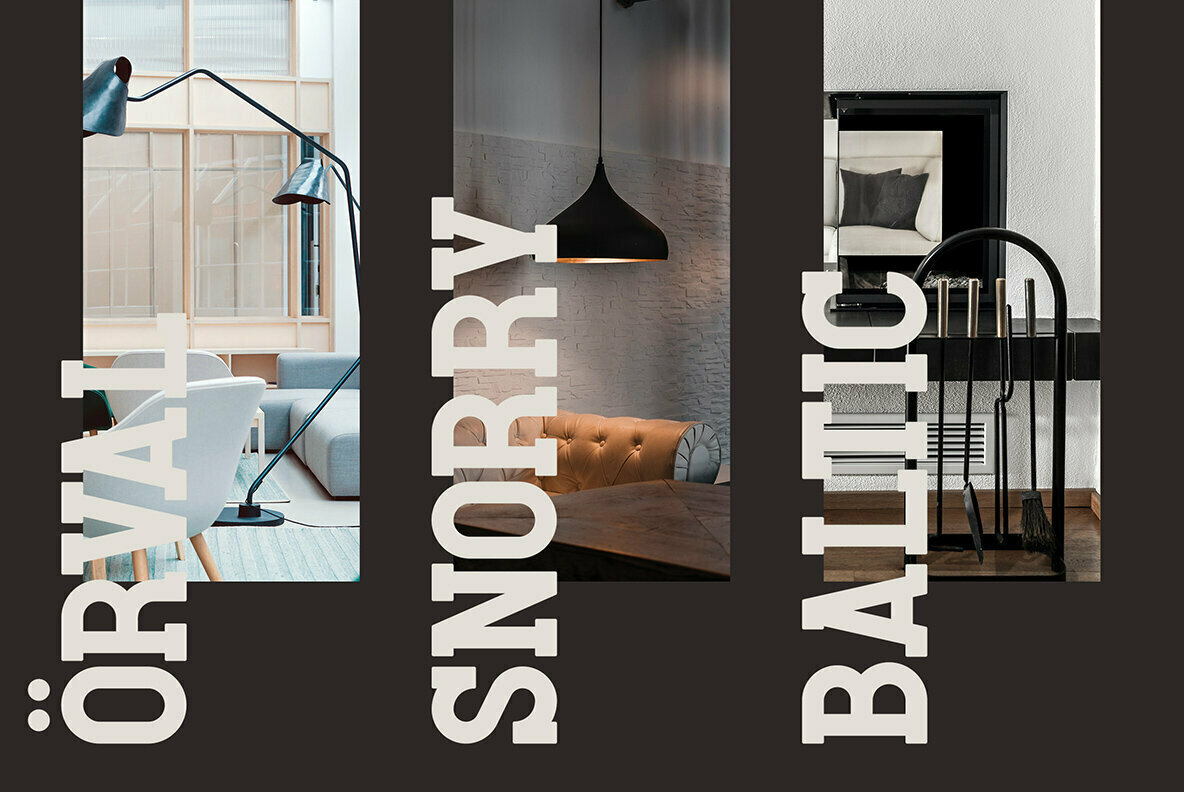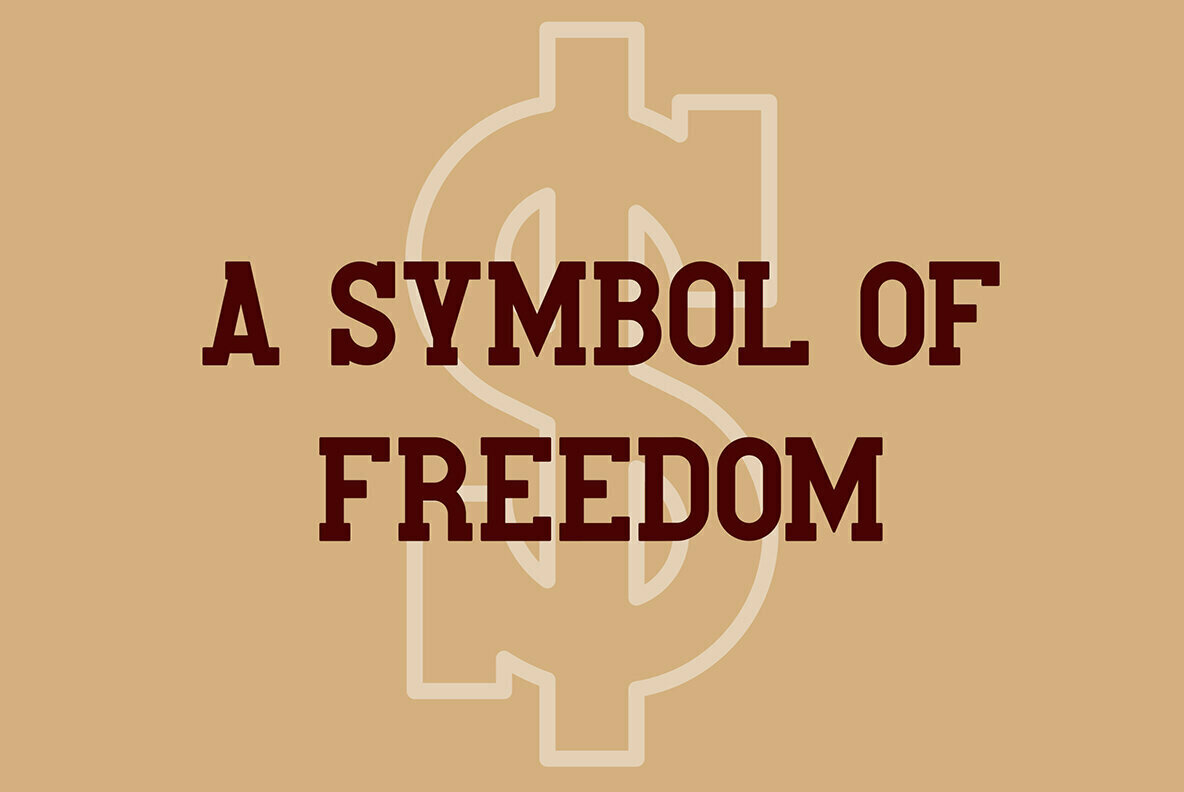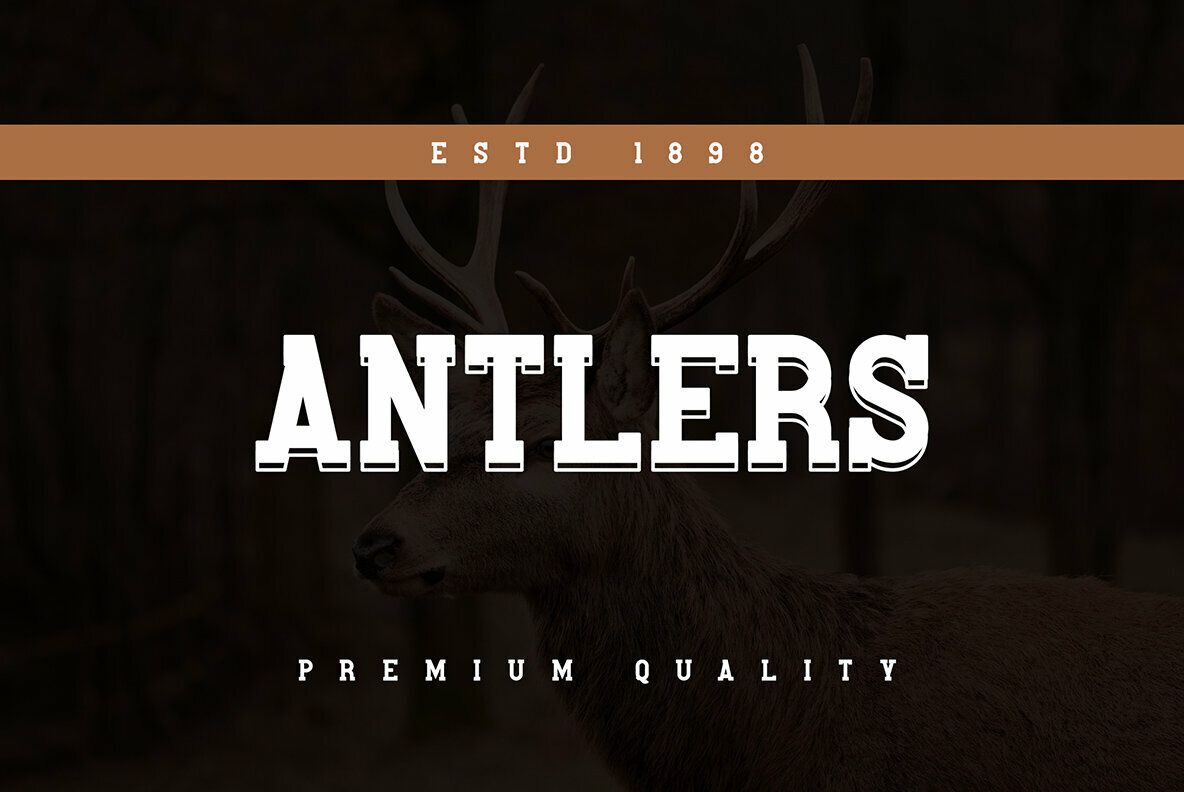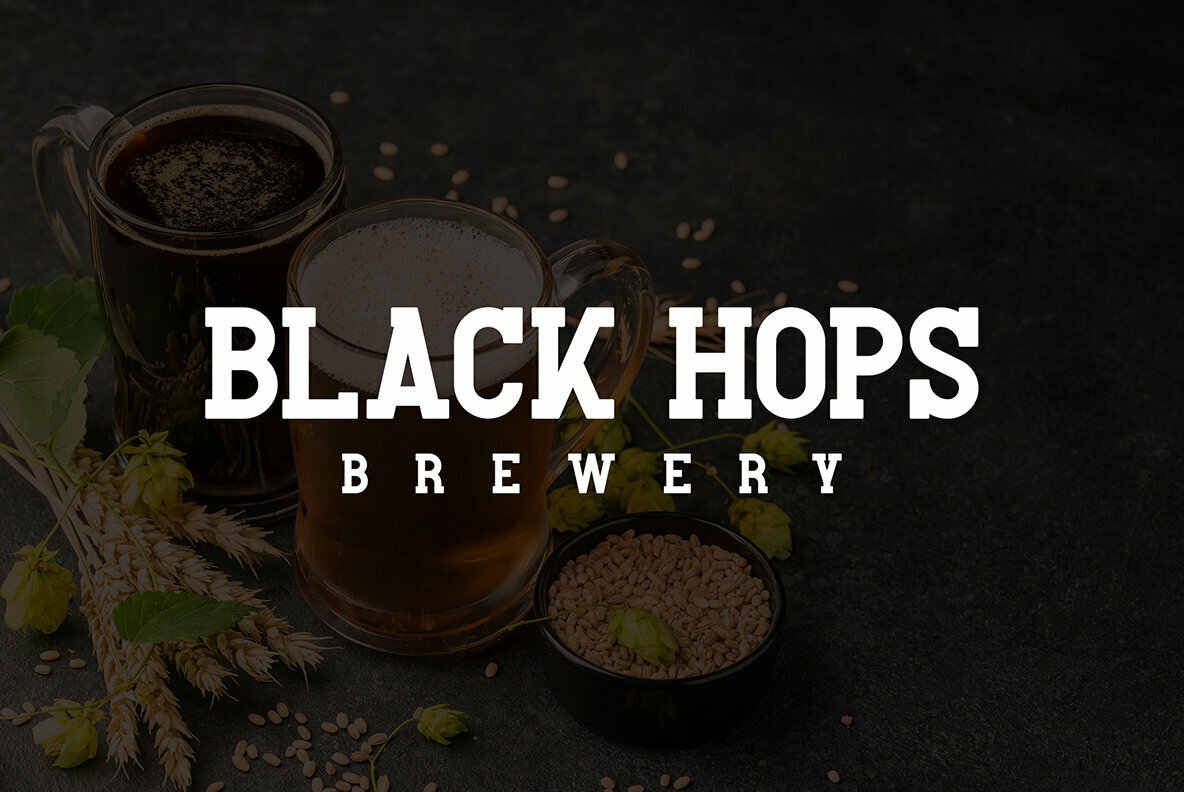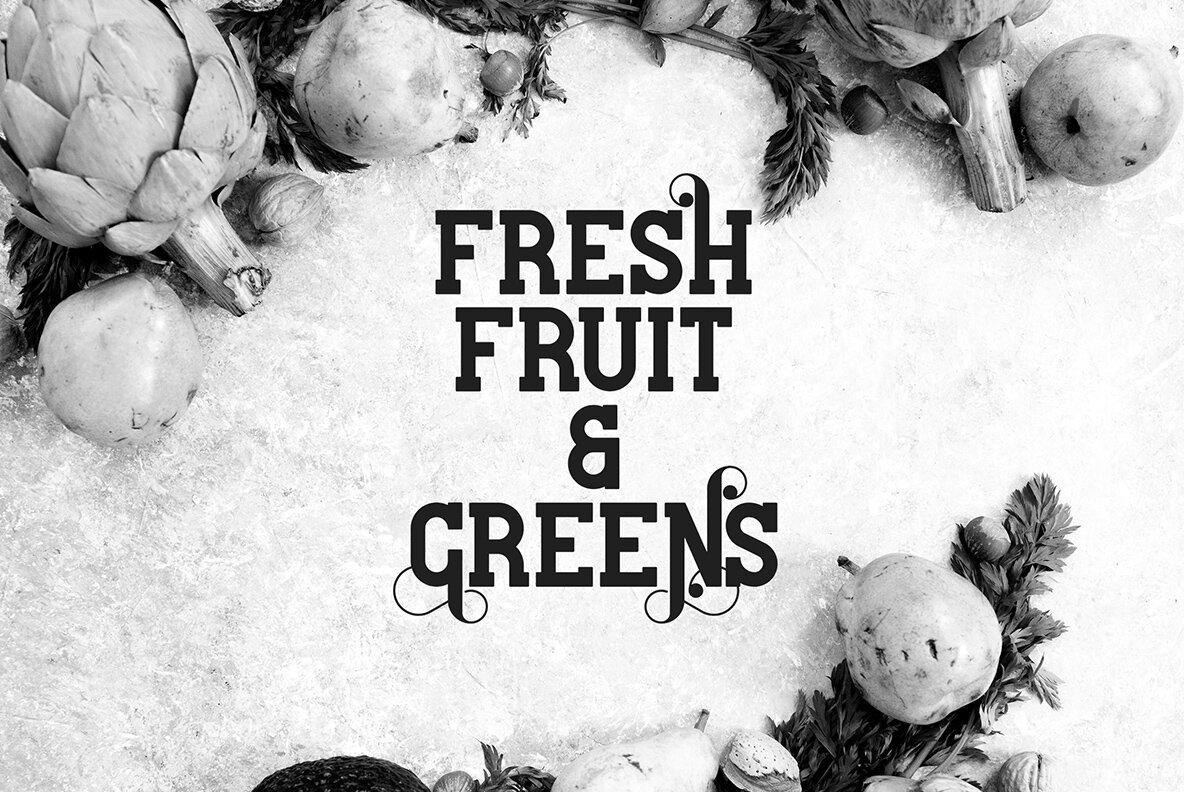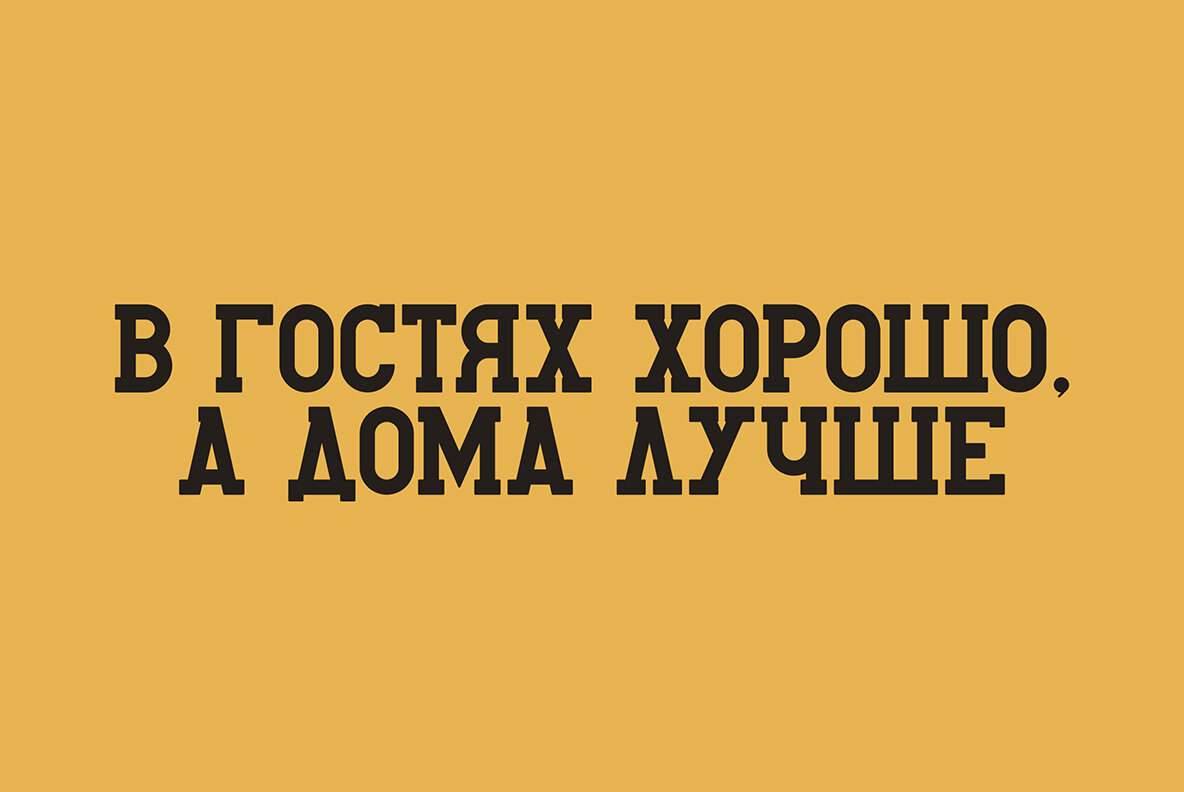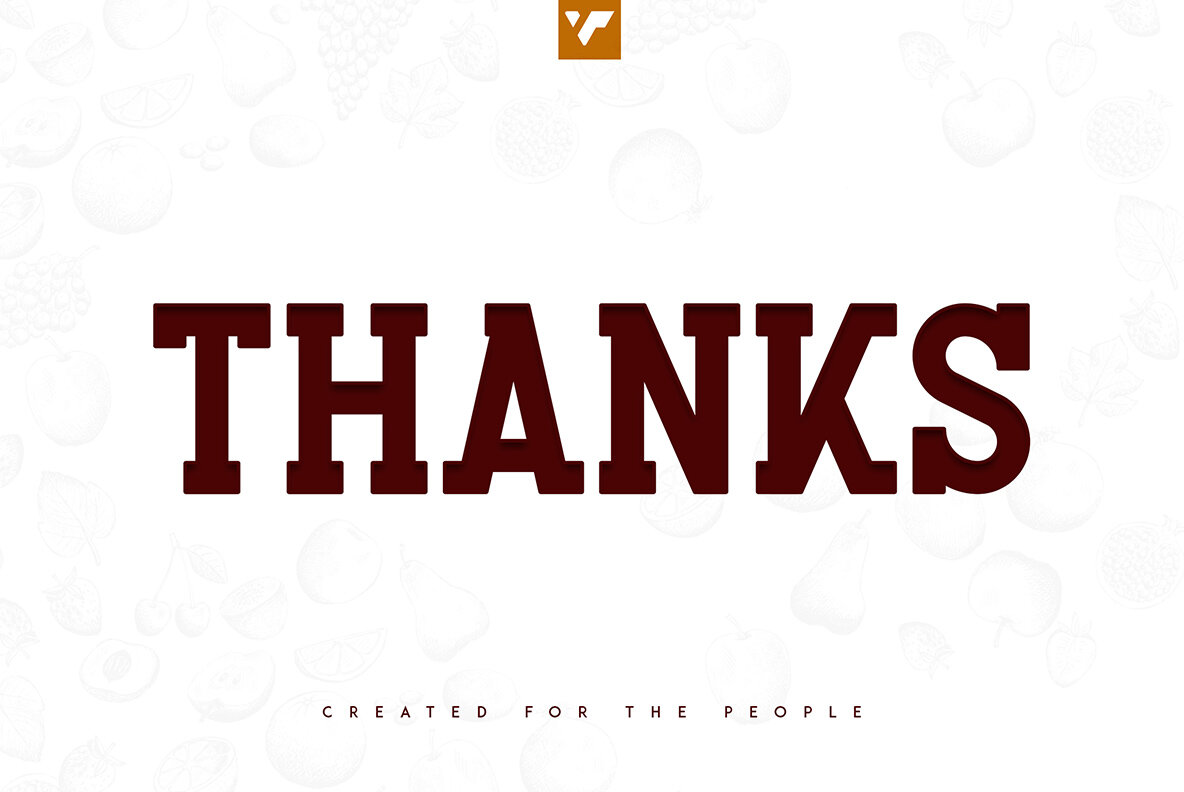
Kompot Slab Serif Font
Introducing Kompot Slab, a distinctive slab serif font by VP Creative Shop, blending swirly elegance with vintage charm. This typeface exudes versatility, available in two styles designed to inspire your creative projects. Kompot Slab offers a wealth of alternate glyphs and extensive multilingual support, making it suitable for various applications, from branding to magazine headers. Whether for product packaging or as a chic text overlay, Kompot Slab brings a refined touch to every design it's part of.Kompot Slab Serif: A Swirly Vintage Typeface